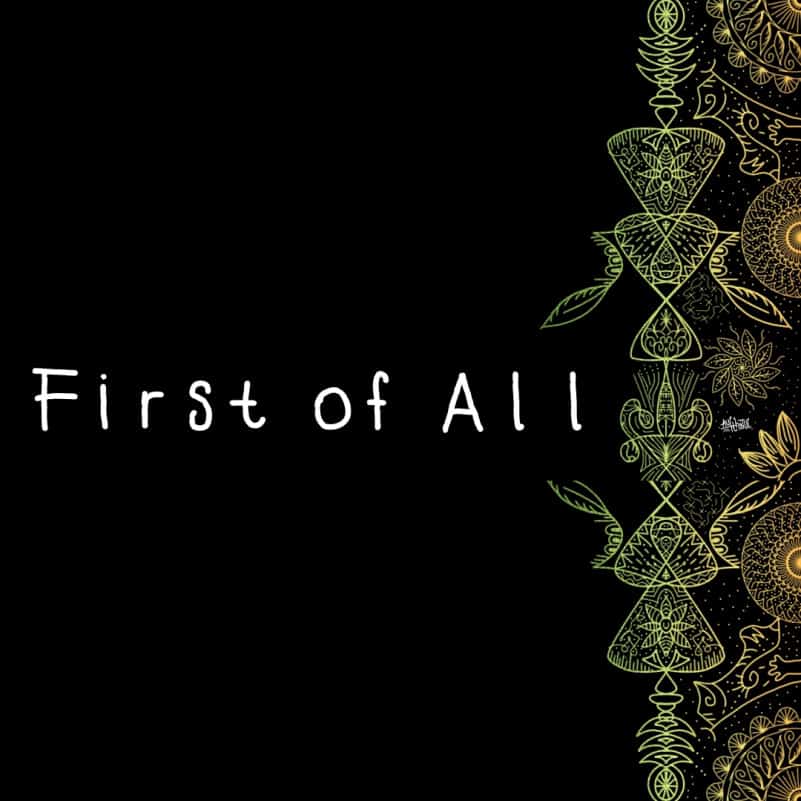
First of All Handwritten Font
First of All Handwritten Font is a handwrittenscript typeface inspired by my handwriting for bullet journal. This typeface good for planner and bullet journal digital or logo, labels, badges, posters and etc.
First of All Handwritten Font comes with uppercase, lowercase, standard punctuation and special letters for most of the European languages.